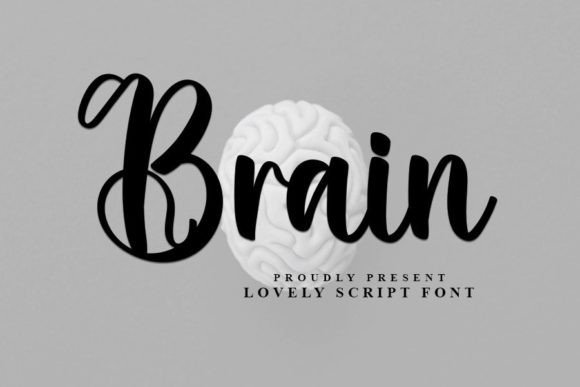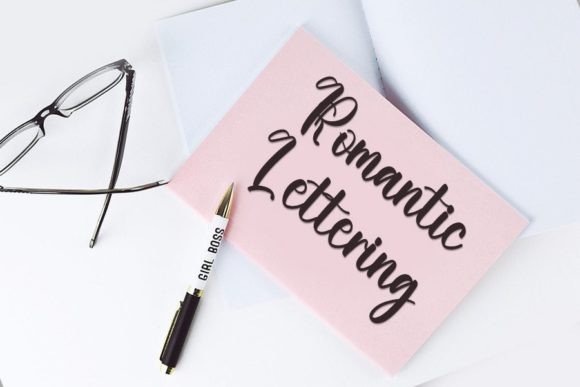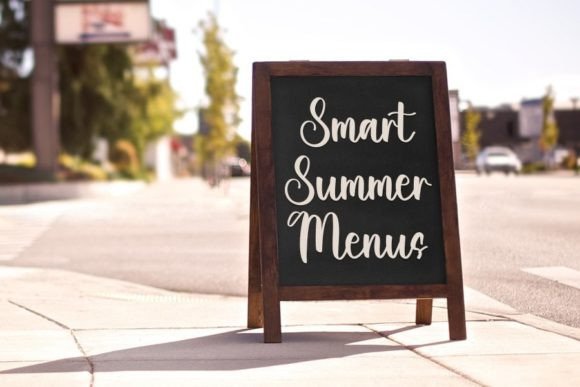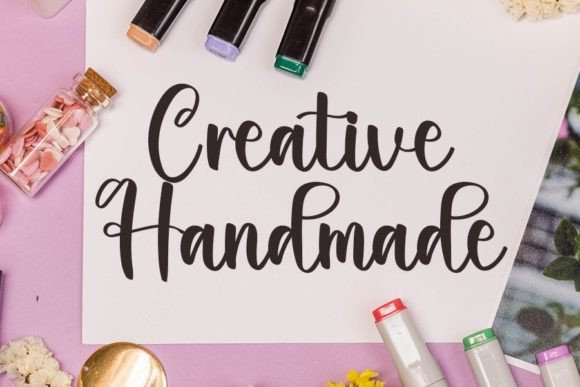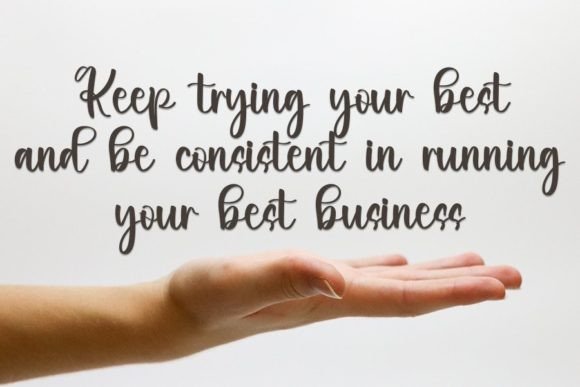
Brain Font
Brain is a delicately crafted and well-rounded handwritten font, designed to bring an authentic touch to your crafty projects. This versatile font is ideal for a range of creative endeavors, from wedding invitations and birthday cards to personal branding and elegant logos. With its subtle and nuanced design, Brain adds a unique charm that enhances the authenticity of your typography.
The delicate strokes of Brain make it suitable for creating an intimate and personalized atmosphere in wedding invitations, where attention to detail contributes to a memorable design. Additionally, envision Brain lending its crafted aesthetic to birthday cards, infusing your messages with a genuine and heartfelt touch.
In the realm of personal branding, Brain offers a distinctive and well-rounded typographic identity. Its delicate design strikes a balance between approachability and sophistication, making it an excellent choice for creating an authentic connection with your audience. Incorporating Brain into elegant logos allows for the creation of a signature look that reflects creativity and genuine craftsmanship.
This font’s versatility extends to various crafting projects where an authentic and well-rounded touch is desired. Whether you’re engaged in DIY endeavors, crafting handmade goods, or pursuing any creative project that demands genuine and well-rounded typography, Brain becomes an excellent choice.
In conclusion, Brain is more than just a font; it’s a design element that adds a delicate and well-rounded authenticity to your crafty projects. Elevate your creative endeavors, from invitations to personal branding, with the genuine and well-rounded charm of Brain. Let this font be the authentic touch that brings a crafted and personalized feel to your designs, making them stand out with a unique and heartfelt appeal.